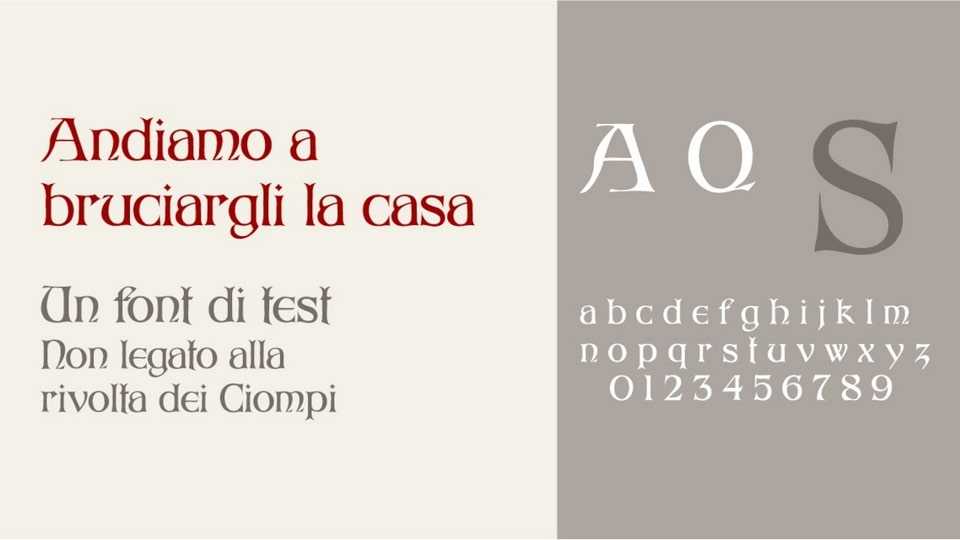
Download Andiamo a Bruciargli La Casa font, a decorative typeface based on scans of drawings by Albert Angus Turbayne (1866-1940). The font captures the essence of medieval manuscripts, featuring ornate flourishes, intricate details, and timeless elegance.